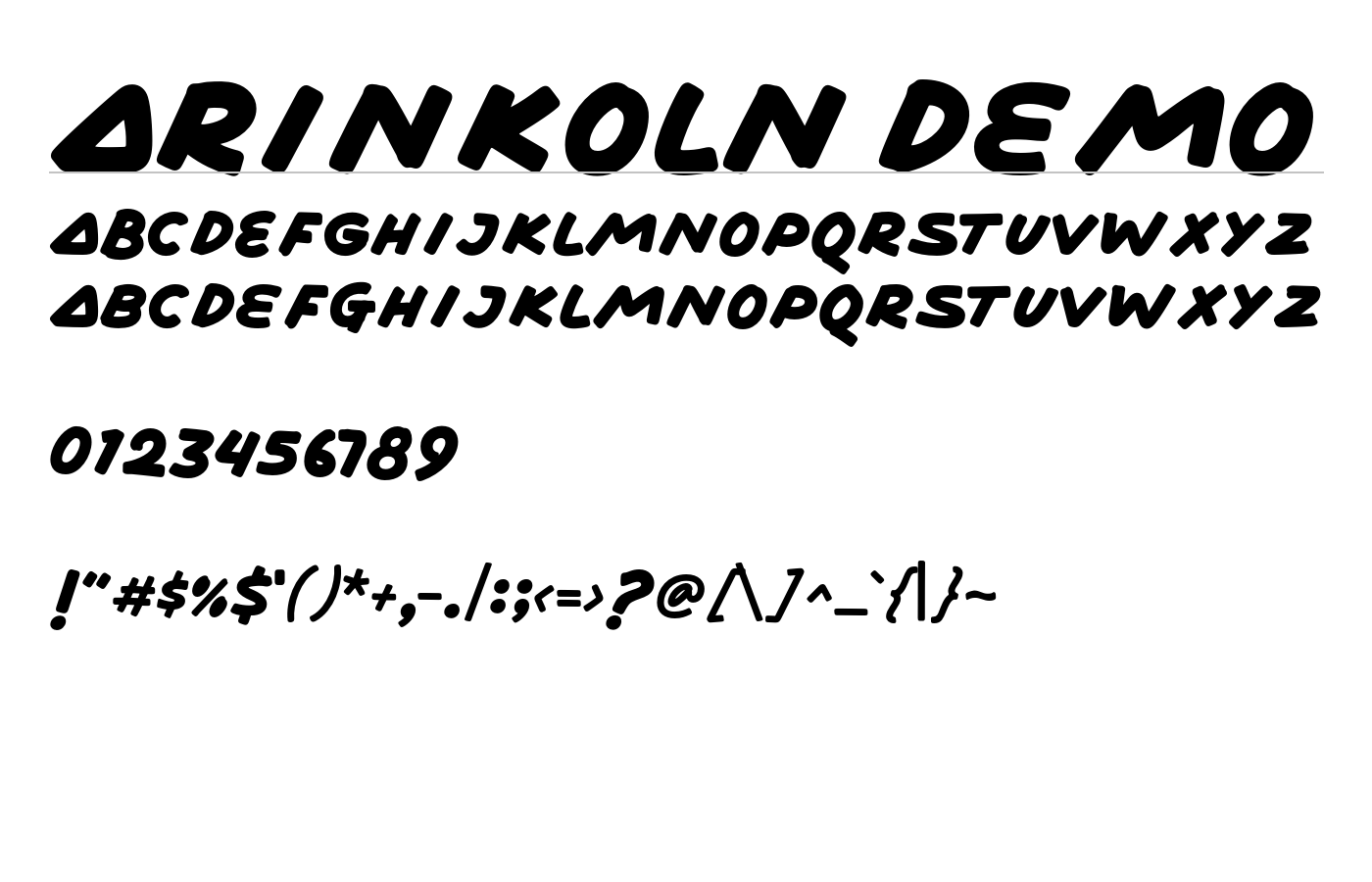
Arinkoln Demo is a bold, playful sans serif font with a handwritten, casual feel. Its thick strokes and slightly condensed letterforms give it strong presence, while the dynamic, irregular shapes add a lively and friendly personality, making it ideal for eye-catching headlines, logos, or creative branding that wants to convey energy and approachability. This font works great in informal and fun contexts where a modern, youthful vibe is desired.
Arinkoln Demo Font
About Arinkoln Demo Font
| Font family | Arinkoln Demo Font |